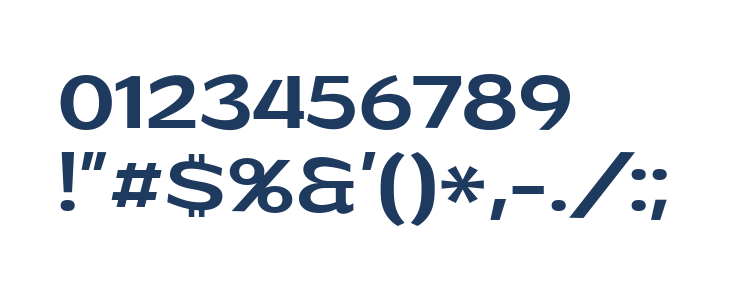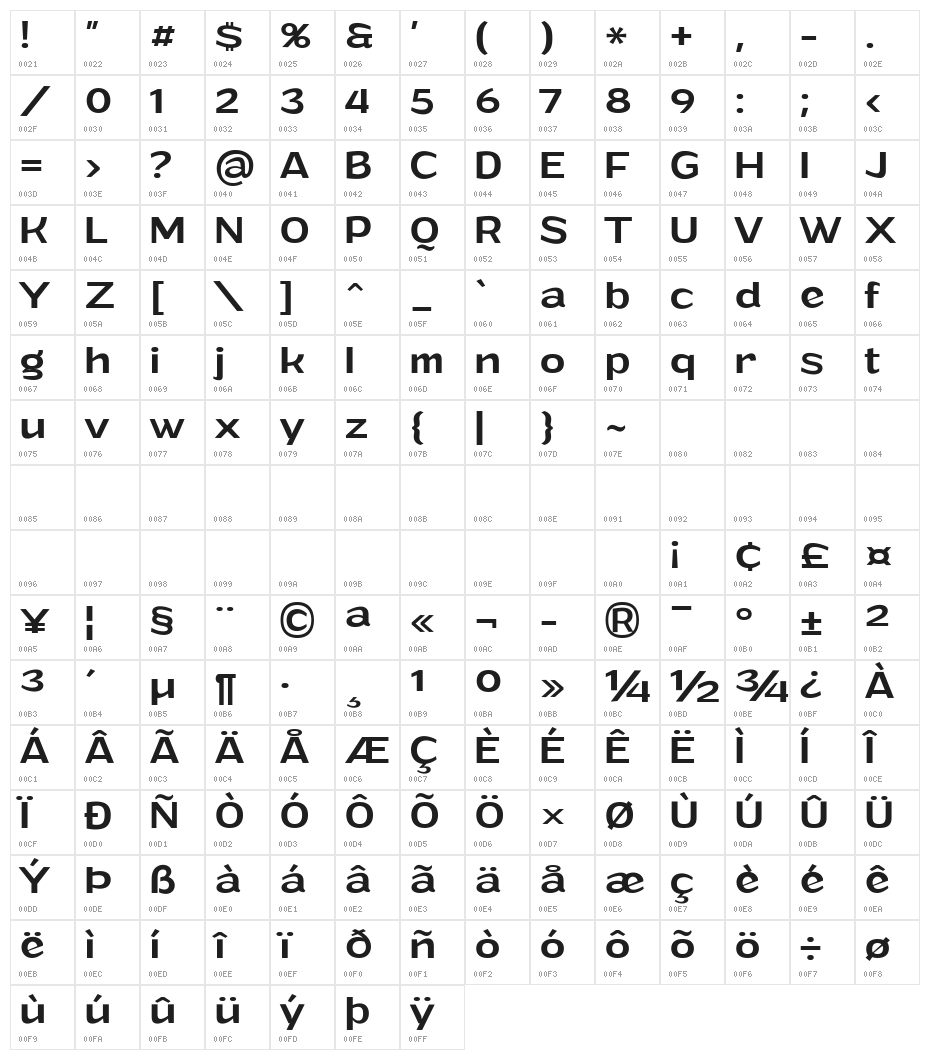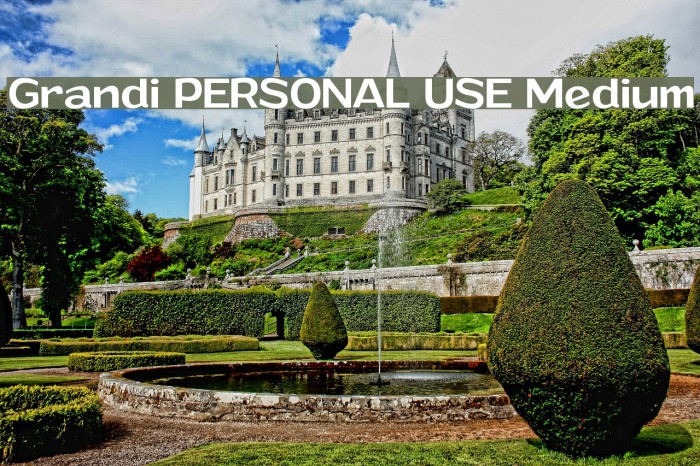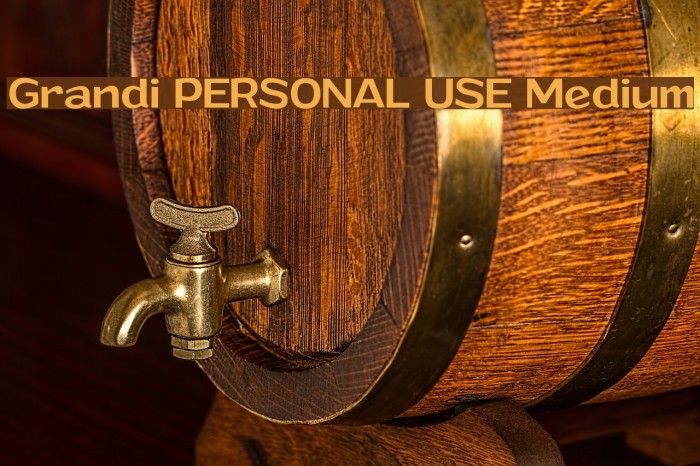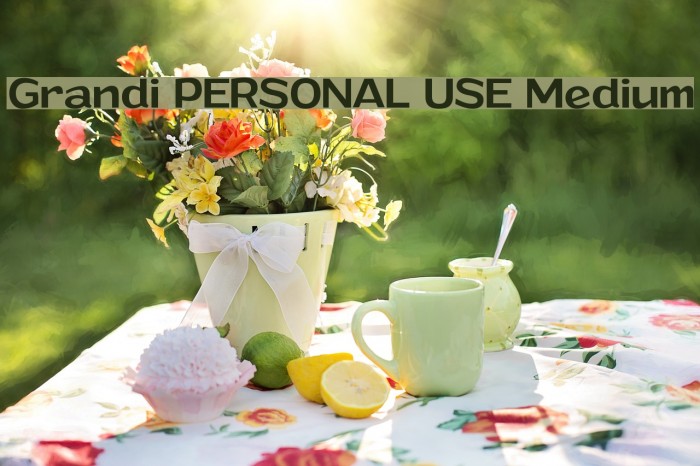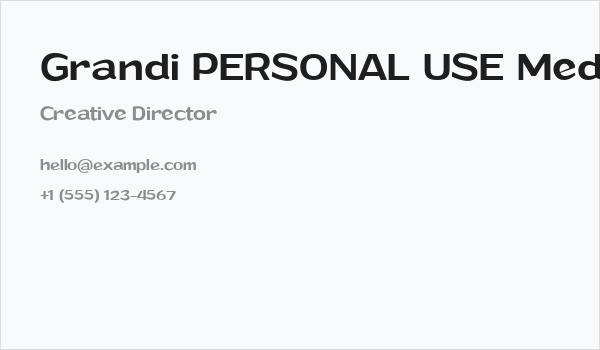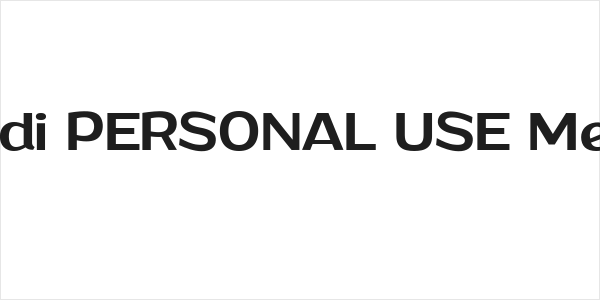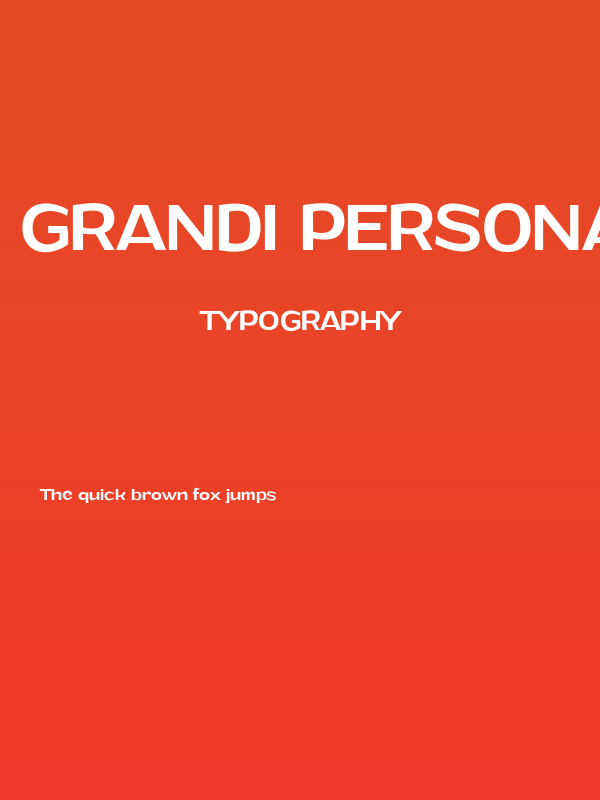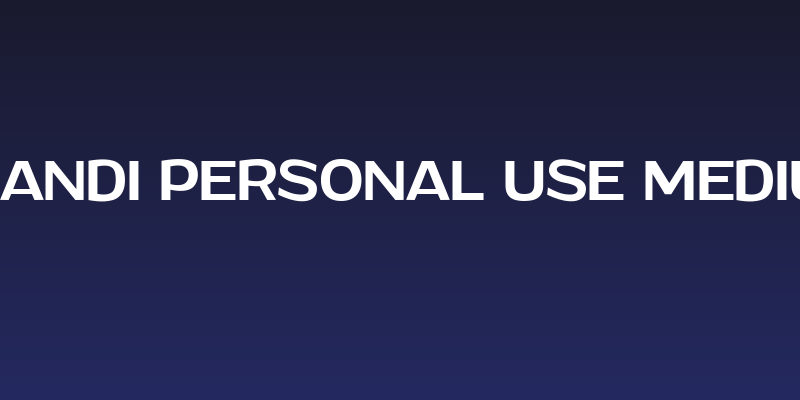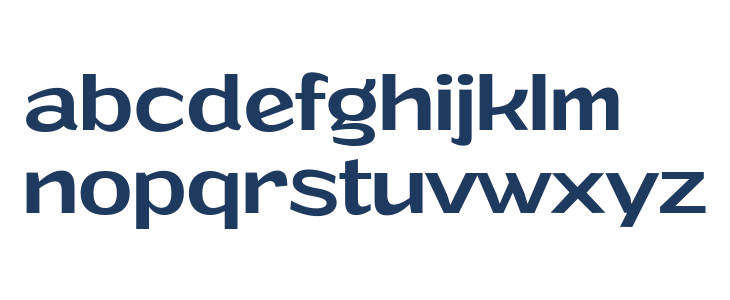
Grandi PERSONAL USE Medium Font
Grandi PERSONAL USE Medium Description
This font features a bold and modern sans-serif design with clean lines and a strong presence. The uppercase letters are uniform in height, providing a consistent and balanced look. The lowercase letters maintain a similar width, ensuring readability and a cohesive appearance. The numerals are clear and distinct, making them suitable for various applications. Special characters are well-defined, adding versatility to the font's use. The overall style is contemporary, making it ideal for projects that require a modern and professional touch.
| Proposed Projects | Ideal for branding, advertising, headlines, and digital media projects. |